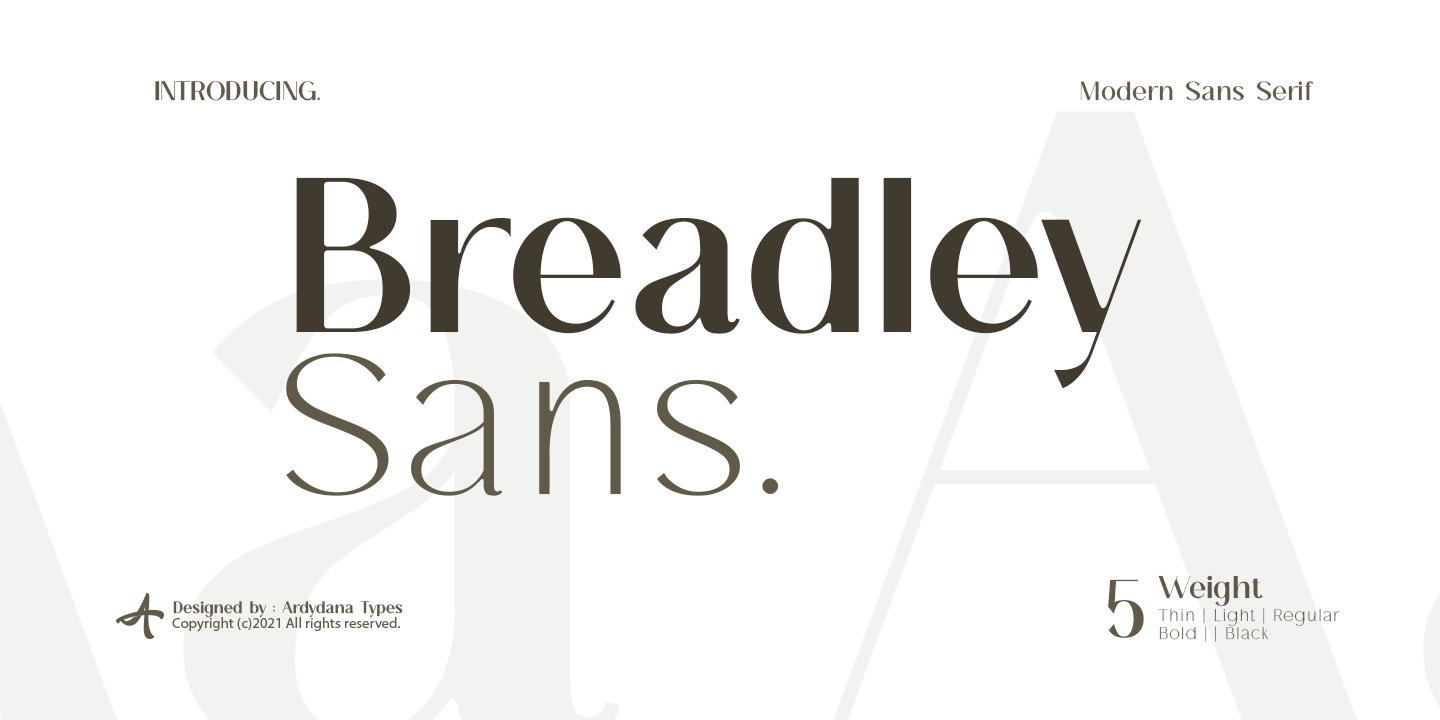
Breadley Sans Font is perfect for artisan bakery branding, farm-to-table restaurant menus, wholesome food packaging, organic grain producers, traditional bread shop signage, rustic cafe materials, homemade bakery products, sustainable food initiatives, cozy neighborhood eateries, and authentic culinary experiences.
What makes Breadley Sans Font exciting is its wholesome warmth and artisanal charm that captures the essence of freshly baked bread with comforting authenticity and homemade goodness. This inviting typeface embodies the spirit of traditional baking with its hearty character forms and bread-inspired proportions that evoke flour-dusted countertops, rising dough in warm kitchens, and the kind of artisanal craftsmanship that transforms simple ingredients into nourishing sustenance. The font's nourishing character creates an immediate sense of comfort and the kind of authentic hospitality that makes people feel at home.
Breadley Sans Font family includes regular weight with warmly crafted character designs featuring wholesome curves and bakery-inspired proportions. The typeface maintains excellent readability while showcasing its distinctive artisanal personality through comfortingly designed letterforms that seem kneaded with care and baked with the loving attention of traditional bakers.
Culinary professionals consistently choose Breadley Sans Font Free Download for projects requiring authentic bakery appeal and artisanal credibility. This remarkable typeface brings the warmth of traditional baking to brand communications, combining wholesome aesthetics with artisanal authenticity to create memorable culinary experiences. The warmly designed characters ensure comforting visual impact across all applications, making it essential for bakeries, artisan food producers, and any culinary organization seeking to communicate the nourishing warmth and authentic craftsmanship that comes from embracing traditional baking heritage through Breadley Sans Font Free Download.